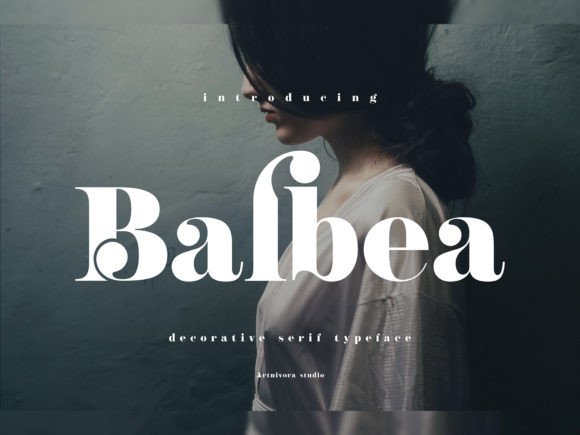
Welcome to the realm of Balbea, a majestic serif font family that exudes timeless sophistication and refined charm. Born from the creative vision of artnivora.std, Balbea is a masterpiece of digital artistry, carefully crafted to elevate your designs with a touch of elegance and grace.
Journey into the world of Balbea and discover a font that captures the essence of artistry and craftsmanship. Its meticulously rendered details and perfectly balanced strokes create a visual symphony that dances across the screen. Balbea's curves flow with an effortless grace, while its serifs add a touch of classic elegance.
Prepare to be captivated by Balbea's versatility, a font that effortlessly adapts to a myriad of creative endeavors. Whether you're crafting an art CV, designing a captivating logo, or weaving words into a visual masterpiece, Balbea becomes your trusted companion, enhancing your creations with its timeless beauty.
With Balbea by your side, transform your designs into works of art. Its refined strokes bring a sense of sophistication to art CVs, adding weight and gravitas to your professional narrative. Logos adorned with Balbea's grace exude a timeless charm, leaving an unforgettable impression on your audience.
But Balbea's allure extends far beyond art and design. Its versatility knows no bounds, making it the perfect choice for crafting captivating headlines, alluring marketing materials, and enchanting social media posts. Balbea's elegant presence commands attention, drawing readers into your words and transporting them to a world of refined aesthetics.
Embrace Balbea, the font that ignites your creativity and elevates your designs to new heights. Its timeless sophistication and effortless grace will leave an indelible mark on your audience, captivating their senses and leaving them yearning for more.